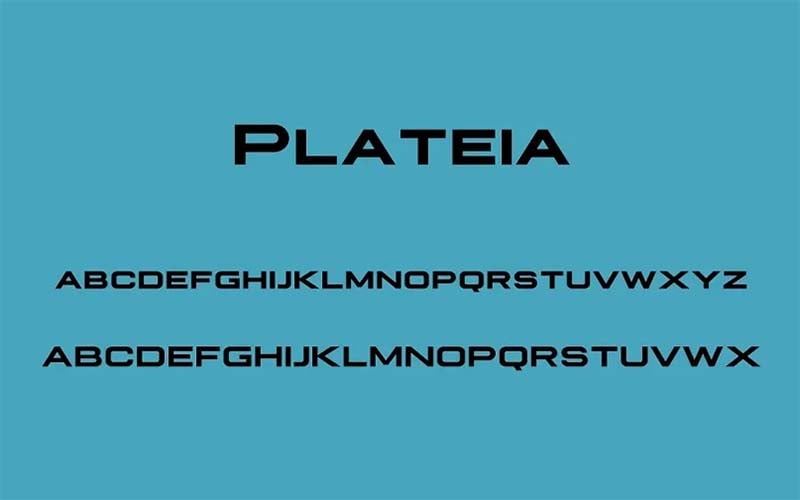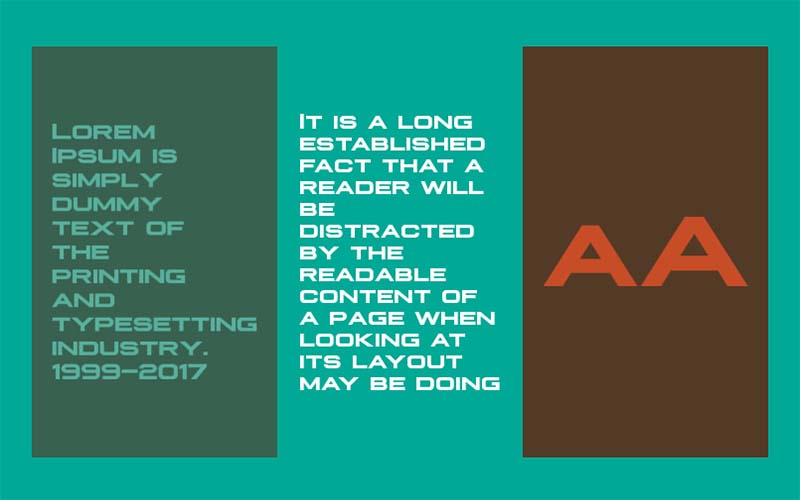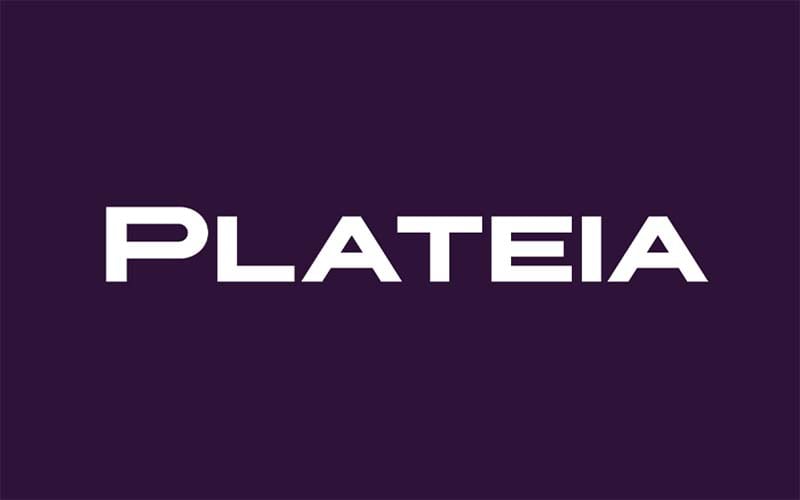
Plateia Font is a basic, sans serif typeface that works great for displaying titles, statements, big website headers, and product labels. Steve Gardner is known as the primary designer of this fine-quality font.
It has shaped its structure with a thick stroke that combines bold creativity with the typeface. This amazing font has available in only one style including Bold.
This is the heaviest weight and possesses over 1,200 characters, including Latin, Latin-1 Supplement, Greek (monotonic and polytonic), and Cyrillic glyphs.
Therefore, we can say that it is a versatile typeface that is firmly built for the display task. And the best part is that all the letters have a clean structure without any mistakes. That way, they really do look great.
In this way, almost all designs from small to large can be made accessible. And the best part is that without any other font help, you can definitely create all sorts of great things with the help of help.
This font is most suitable for modern businesses and creative agencies for crafting logos, book covers, unique emblems, product designs, product packaging, fabric printing, headlines, web development, and so on.